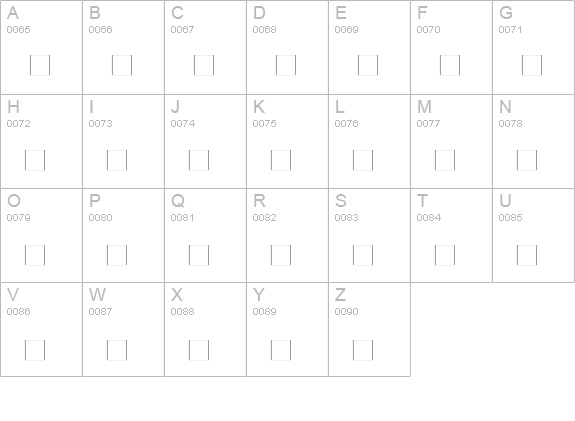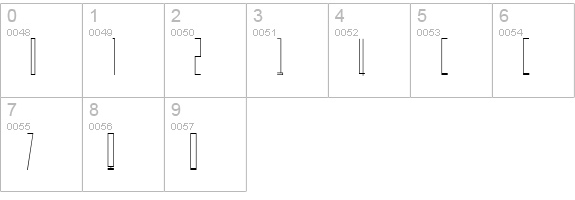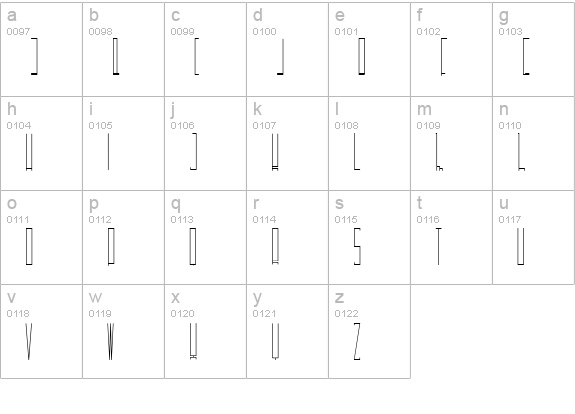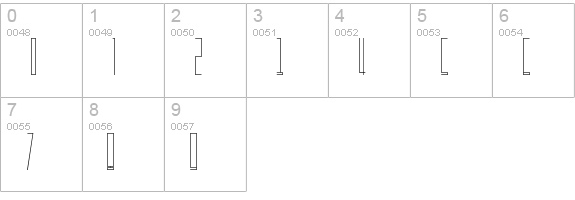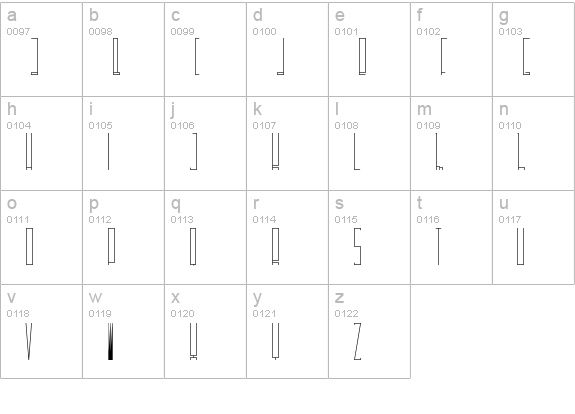
Introducing BABBIO-BASSO, a stunning and versatile font that is sure to captivate and inspire. This unique typeface combines elegance with a touch of modernity, making it perfect for a wide range of design projects. With its clean lines and balanced proportions, BABBIO-BASSO exudes a sense of sophistication that is suitable for both print and digital media. Whether you are designing a logo, creating a brand identity, or crafting eye-catching headlines, this font will effortlessly elevate your work to new heights. What sets BABBIO-BASSO apart is not only its impeccable design, but also its accessibility. This font is freely available to download at FontsMarket.com, allowing designers of all levels to access and utilize its creative potential without any limitations. The freedom to experiment and explore with this font is truly unparalleled. BABBIO-BASSO's extensive character set includes uppercase and lowercase letters, numbers, punctuation marks, and special characters, ensuring that you have everything you need to bring your visions to life. Its versatility is further enhanced by the range of weights and styles available, giving you the flexibility to adapt the font to suit your specific design needs. Whether you are a seasoned designer or just starting out, BABBIO-BASSO is an invaluable addition to your font library. Its timeless appeal and free availability make it a must-have for any creative project. Download BABBIO-BASSO today from FontsMarket.com and unlock the boundless potential of this remarkable font.